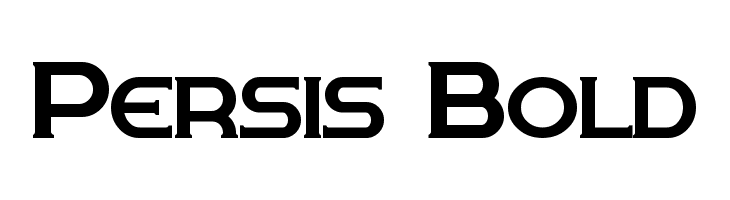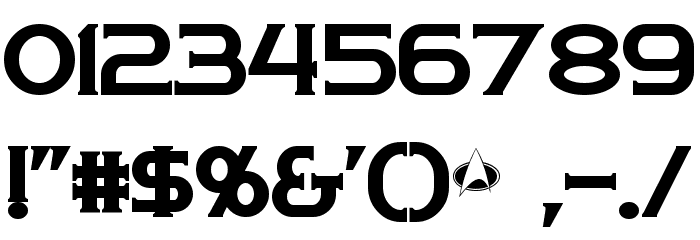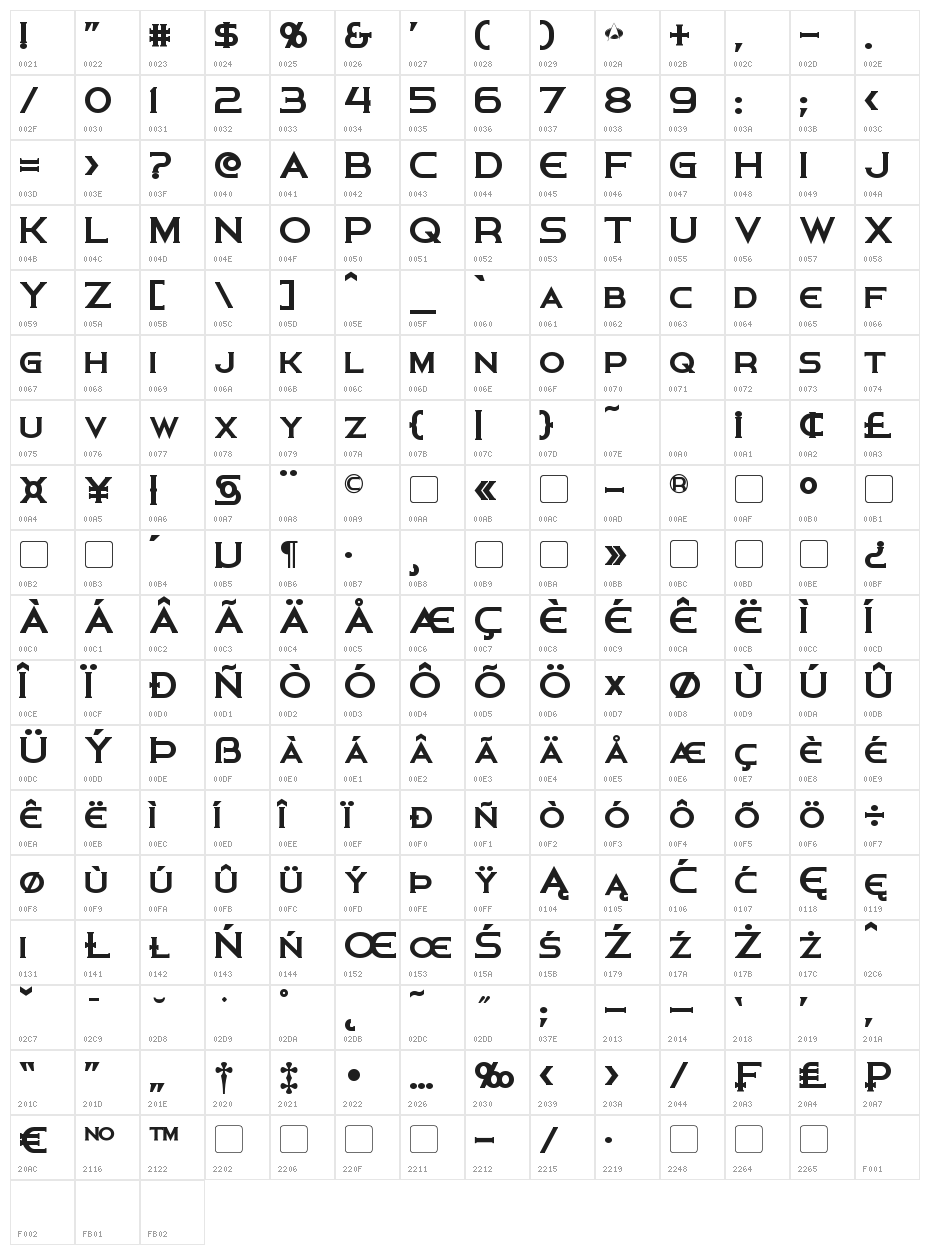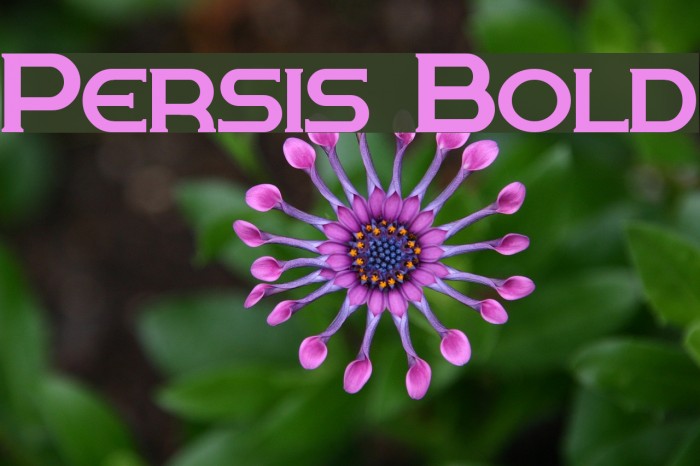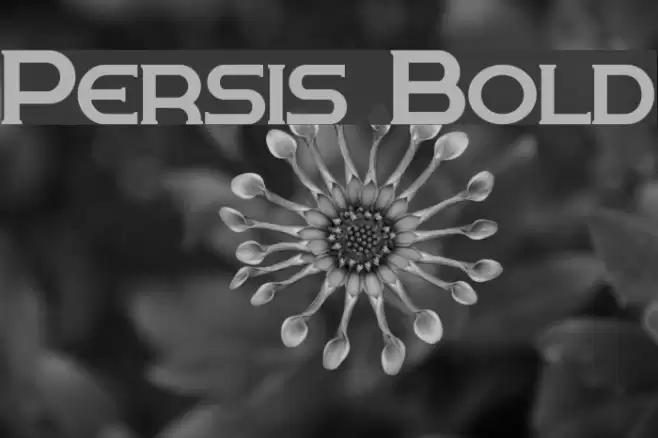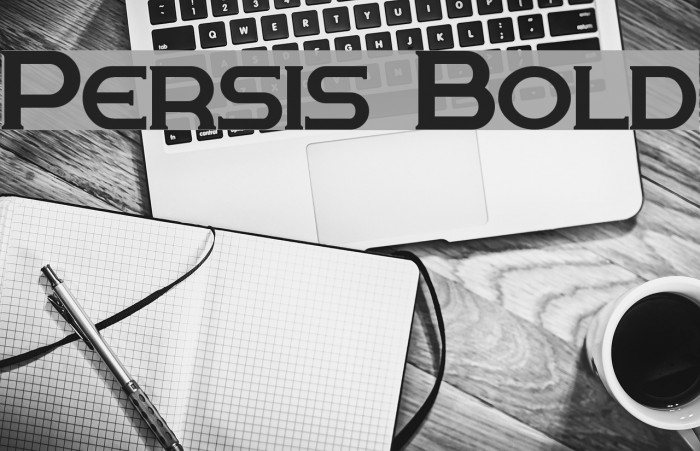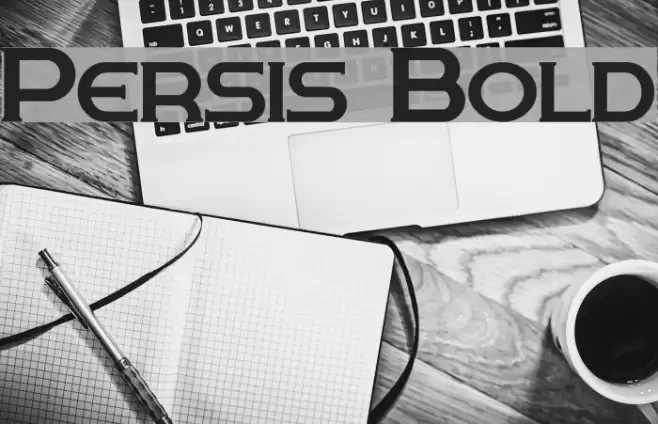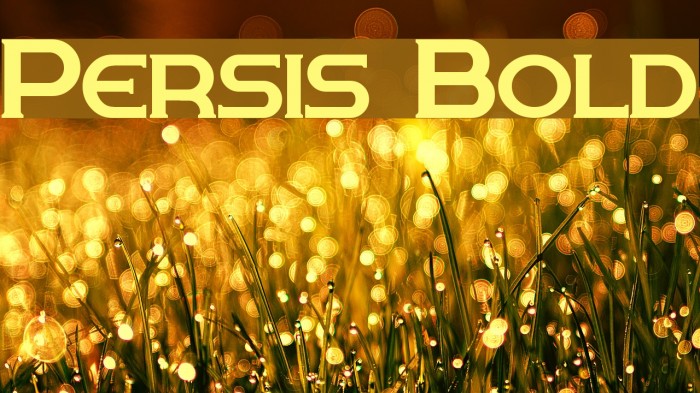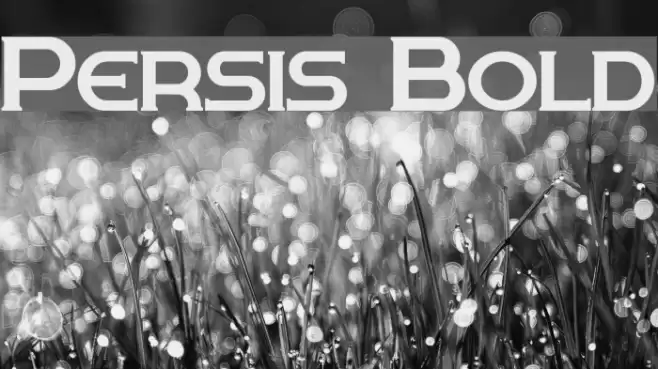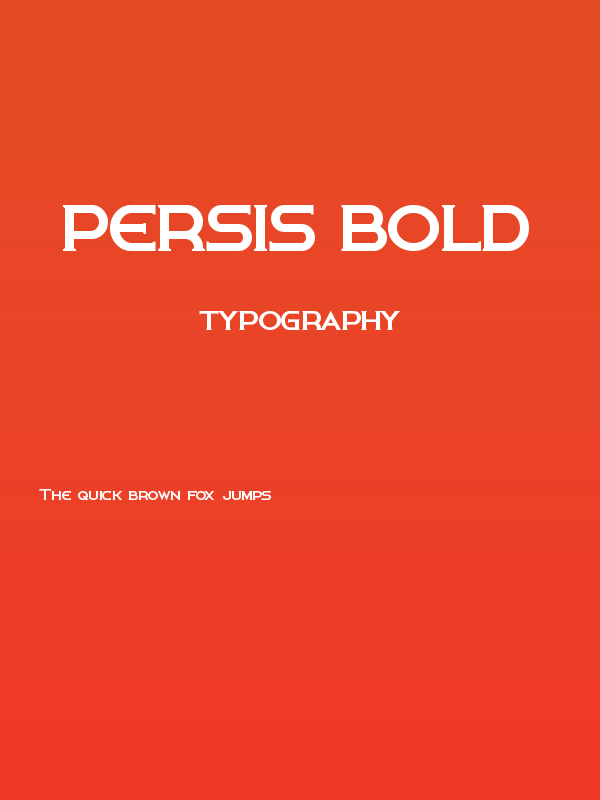
Persis Bold Font
Persis Bold Description
This font features a bold and futuristic design, characterized by its geometric shapes and sharp angles. The uppercase letters are distinct with a modern, tech-inspired aesthetic, while the numbers and special characters maintain a consistent style that complements the overall design. The font's structure is clean and precise, making it suitable for projects that require a contemporary and innovative look. The boldness of the characters ensures high visibility and impact, making it ideal for attention-grabbing headlines or branding materials.
| Proposed Projects | Ideal for technology branding, sci-fi themed designs, video game interfaces, and modern advertising campaigns. |